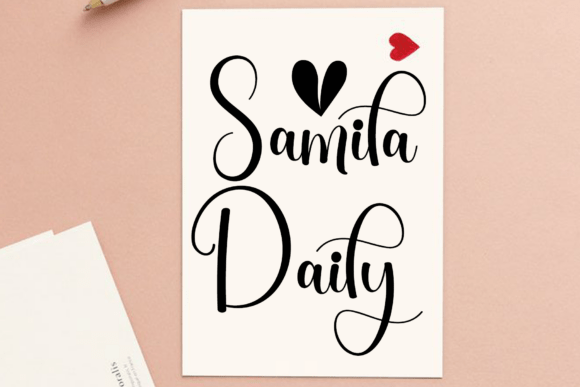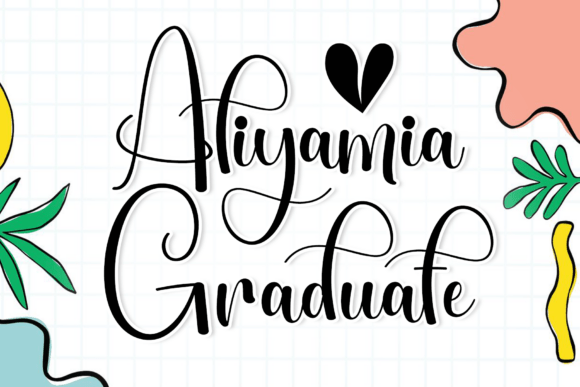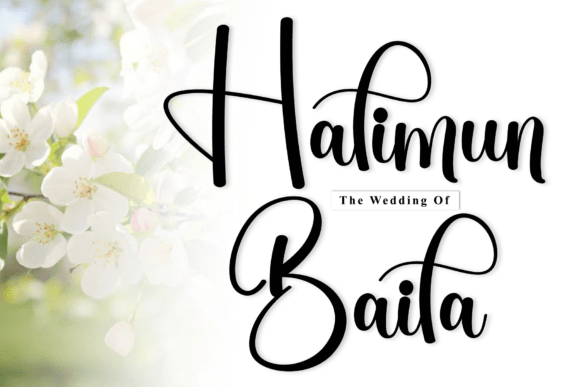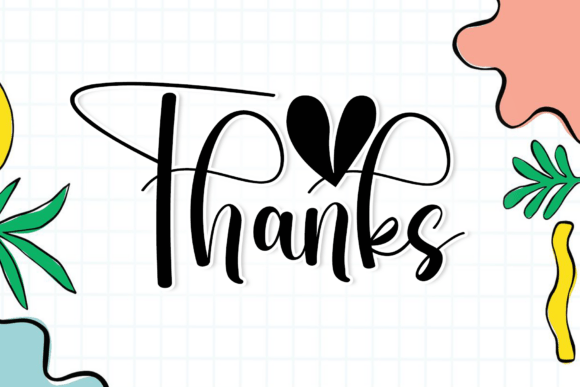
Introducing Family Happyday Font: The Sweet and Cursive Handwritten Font for Your Design Needs
Are you looking for a font that can add a touch of joy and romance to your designs? Look no further than the Family Happyday Font! This sweet and cursive handwritten font is perfect for a variety of design ideas, from branding and logos to wedding materials and greeting cards. In this article, we’ll explore the features and benefits of the Family Happyday Font and how it can elevate your designs to the next level.
A Font that Exudes Joy and Romance
The Family Happyday Font is a gentle and elegant font that is sure to bring a smile to your face. Its cursive and handwritten style gives it a personal and intimate feel, making it perfect for designs that require a touch of warmth and personality. Whether you’re creating a logo, a wedding invitation, or a greeting card, this font is sure to add a joyful and romantic touch to your project.
Versatile and Flexible
One of the best things about the Family Happyday Font is its versatility. It can be used for a wide range of design projects, from branding and marketing materials to fashion and lookbooks. Its elegant and casual style makes it perfect for designs that require a touch of sophistication, but still need to feel approachable and friendly.
The Family Happyday Font is a must-have for designers and crafters who want to add a personal touch to their work. Whether you’re creating custom wedding invitations, designing a logo for a new business, or crafting a lookbook for a fashion brand, this font is sure to be a valuable addition to your toolkit. Its ease of use and flexibility make it perfect for designers of all skill levels, from beginners to seasoned professionals.
Key Features of the Family Happyday Font
• Sweet and cursive handwritten style: The Family Happyday Font features a beautiful, cursive handwritten style that is sure to add a touch of joy and romance to your designs.
• Elegant and casual: This font is both elegant and casual, making it perfect for designs that require a touch of sophistication, but still need to feel approachable and friendly.
• Versatile: The Family Happyday Font can be used for a wide range of design projects, from branding and marketing materials to fashion and lookbooks.
Tips and Inspiration for Using the Family Happyday Font